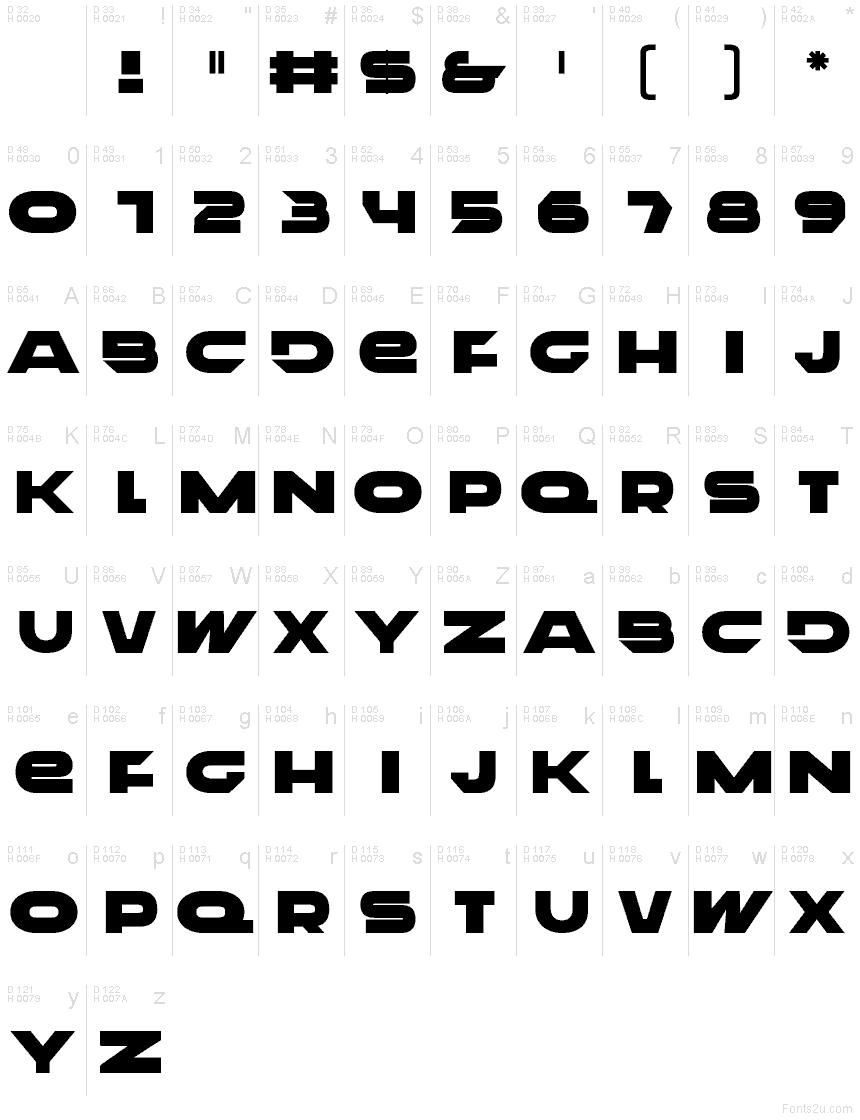
Trickr Logo
Trickr Logo font by Ffeeaarr is a minimalist and modern display font with futuristic expanded characters that look both unique and readable. Its letters are drawn in an all-uppercase style and pair quite well among themselves despite different outer geometries.